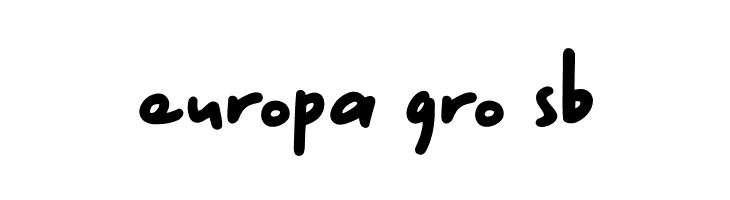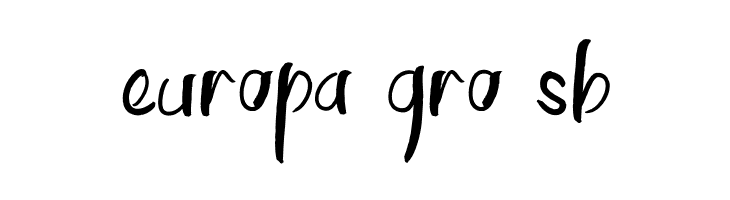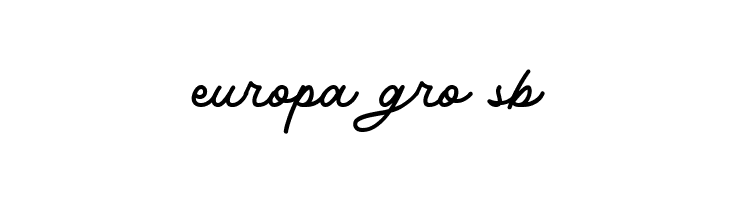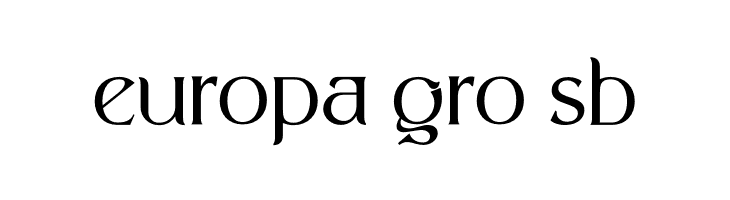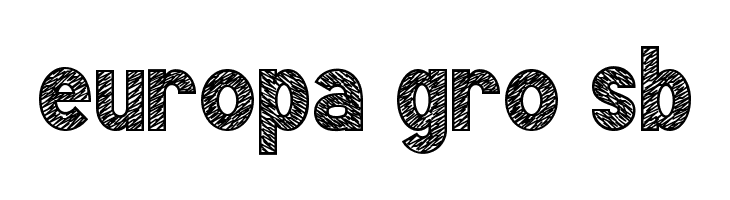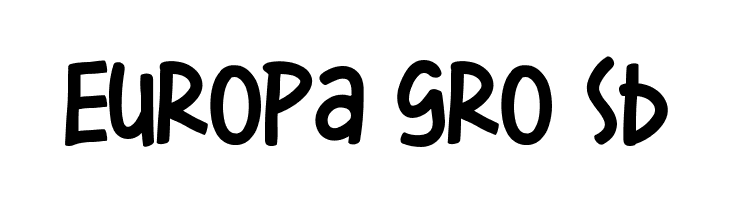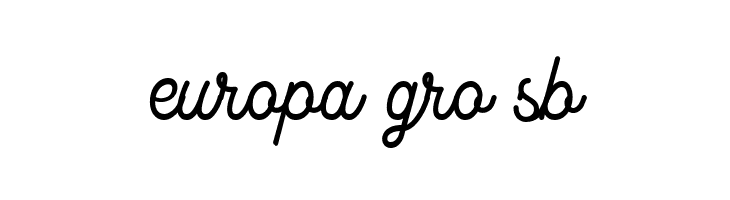
A bold, rounded font with a friendly and approachable style.
A playful, sketch-like font with a hand-drawn appearance, ideal for creative and educational projects.
A flowing, cursive script font with elegant, connected letters.
A playful and casual handwritten font with fluid, dynamic strokes.
A playful, bold font with bubbly, rounded characters and a whimsical style.
A playful, bold handwritten font with thick strokes and a friendly appearance.
A lively, handwritten font with dynamic strokes and a playful style.
A bold, playful handwritten font with thick strokes and rounded edges.
A bold, playful handwritten font with rounded, casual letterforms.
A modern classic font with elegant serifs and refined contrast, perfect for stylish designs.